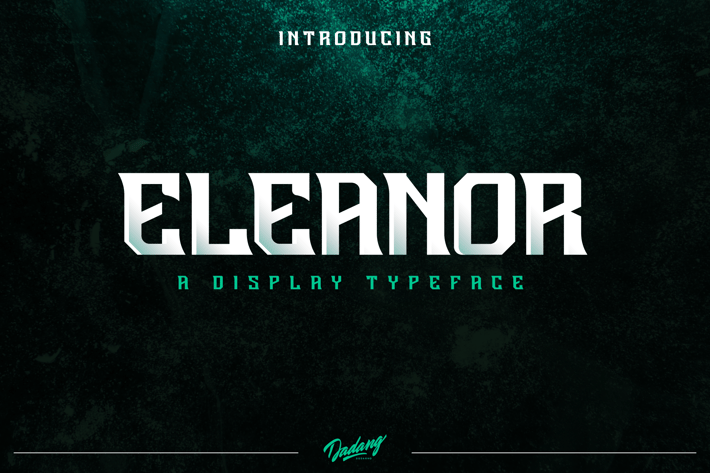
Eleanor Display Font
“Eleanor” is a esports display based typeface which includes both capital and lowercase characters. It has a strong image that be inspired by esports branding. It was created to be tall, bold and rough. It also has a beautiful spacing between each character. Easy tweaking shape make the headline , title and wordmarks more outstanding when it is used.